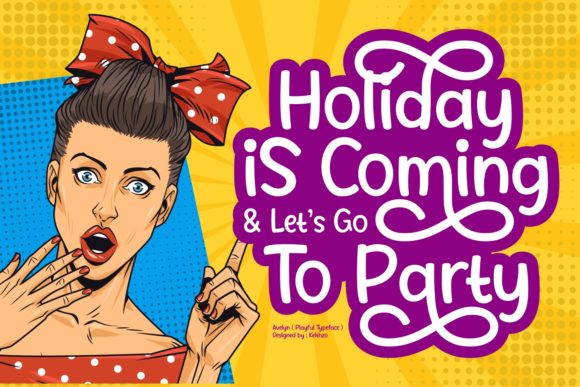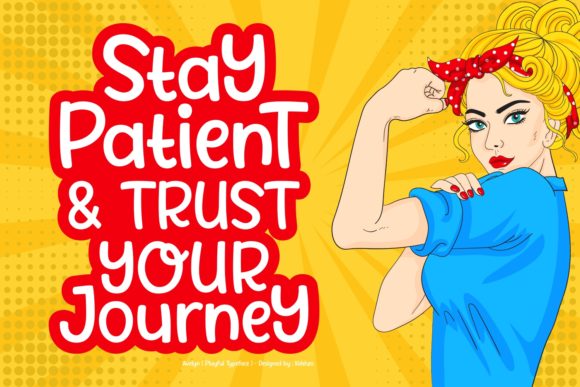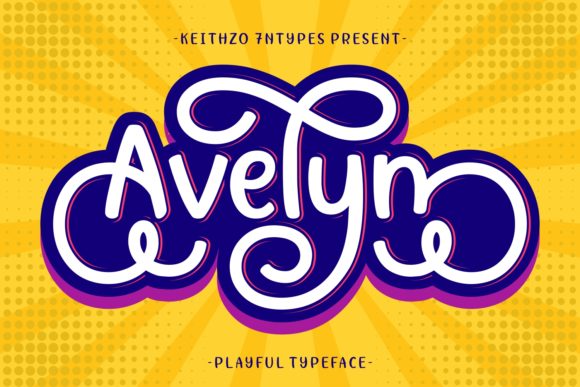
Elevate Your Designs with the Elegant Avelyn Script Font
Are you looking for a font that can add a touch of sophistication and elegance to your designs? Look no further than the Avelyn script font. This beautiful font is perfect for designers and crafters who want to make their projects stand out from the crowd. With its simple yet decorative style, Avelyn is a versatile font that can be used for a wide range of design applications.
What Makes Avelyn Script Font Special?
The Avelyn script font is a unique and stylish font that is designed to make your designs stand out. One of the things that sets it apart is its ability to be both simple and decorative. When used on its own, Avelyn has a clean and elegant look that is perfect for body text and headings. However, when combined with its available swashes, it can add a touch of drama and flair to your designs.
PUA Encoding for Easy Access to Glyphs and Swashes
Another great feature of the Avelyn script font is that it is PUA (Private Use Area) encoded. This means that you can access the available glyphs and swashes with ease, making it simple to customize your designs. With PUA encoding, you don’t need to be a font expert to use the special characters and swashes that make Avelyn so unique.
Whether you’re a professional designer or a crafter looking to add a personal touch to your projects, the Avelyn script font is a great choice. Its elegant style makes it perfect for a wide range of design applications, including:
- Stationery and invitations
- Branding and packaging
- Signs and posters
- Craft projects, such as scrapbooking and card making
Tips for Using Avelyn Script Font
To get the most out of the Avelyn script font, here are a few tips to keep in mind:
- Use Avelyn as a headline font to add a touch of elegance to your designs.
- Combine Avelyn with a simple sans serif font for a stylish and modern look.
- Experiment with the available swashes to add a personal touch to your designs.
- Use Avelyn for body text to add a touch of sophistication to your projects.
Why Choose Avelyn Script Font?
With so many fonts to choose from, why should you choose Avelyn script font? Here are just a few reasons:
- Unique and stylish design that will make your projects stand out.
- PUA encoded for easy access to glyphs and swashes.
- Versatile and can be used for a wide range of design applications.
- Elegant and sophisticated style that’s perfect for designers and crafters.